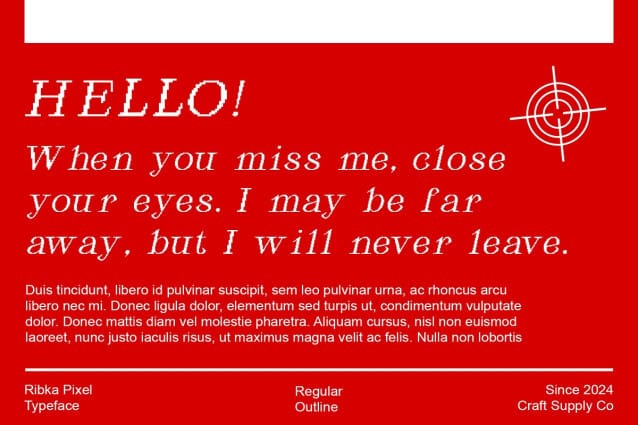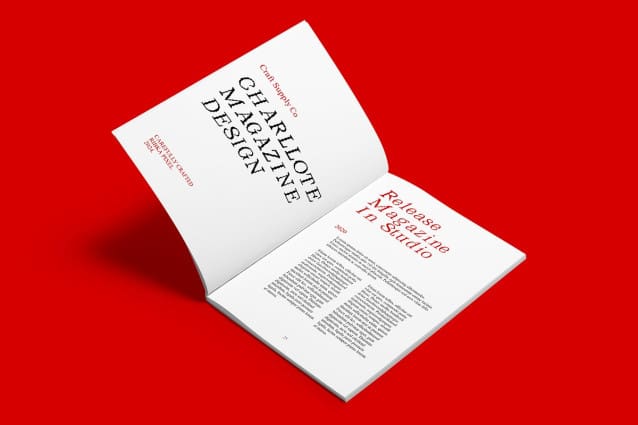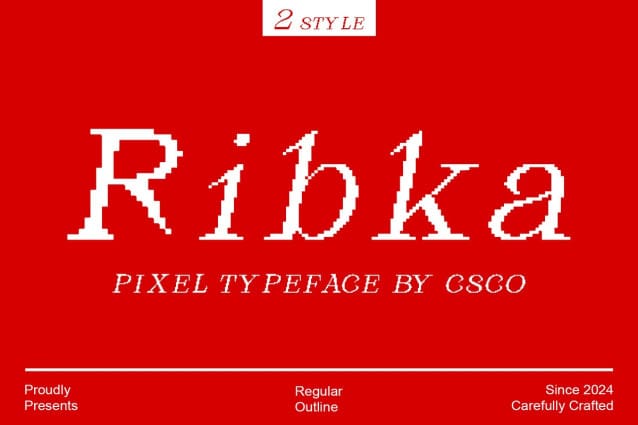
Ribka Pixel Font
Ribka Pixel Font is a modern serif font that blends elegant style with a pixel vibe, making it perfect for display purposes. Its unique design combines the sophistication of a serif font with the charming irregularities of pixel art, adding character to any project.
Experience the elegance of Ribka Pixel Font, enhanced with a pixel twist. Each letter is meticulously crafted to maintain a refined appearance while embracing the playful nature of pixel art, creating a delightful contrast that captures attention.
Designed for display purposes, Ribka Pixel Font shines in headlines, titles, and other prominent text elements. Its distinctive style adds a touch of creativity to designs, making it ideal for projects that demand a modern yet quirky aesthetic.
Despite its pixelated charm, Ribka Pixel Font remains versatile and captivating. Whether used in digital or print media, it adds a unique flair that sets your design apart, ensuring that your message is both memorable and stylish.